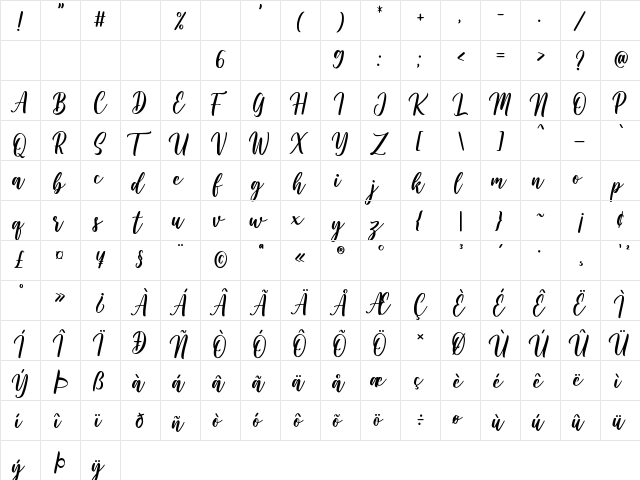
Wishper Script Regular
| Designer | Fajar Abdul Fatah - Nurf Designs |
Design Context for Wishper Script Typeface
Wishper Script brings a calligraphic fluidity to the page — its connecting strokes and expressive curves give it an unmistakably human quality.